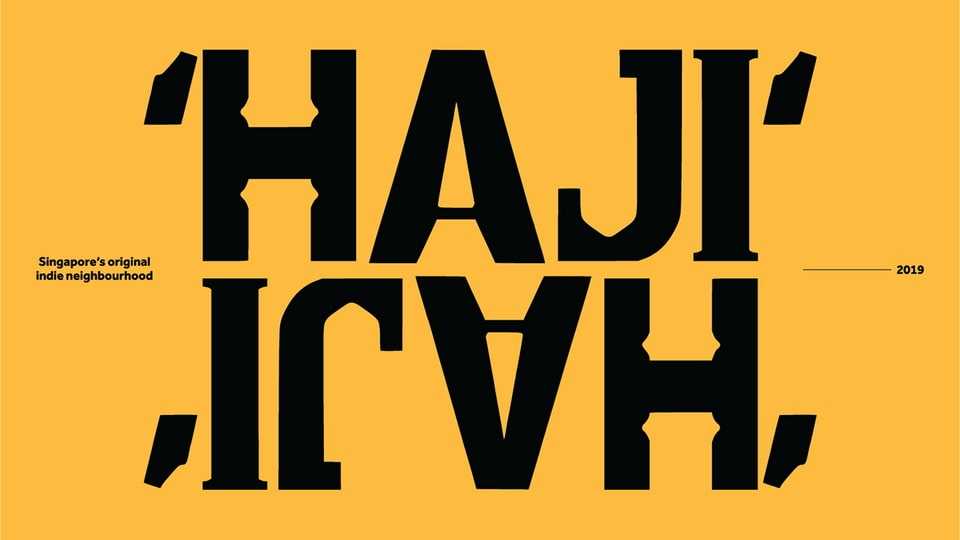
Download Haji Type font, a vibrant, decorative display typeface aimed at capturing the essence of Haji Lane, Singapore’s original indie neighborhood.